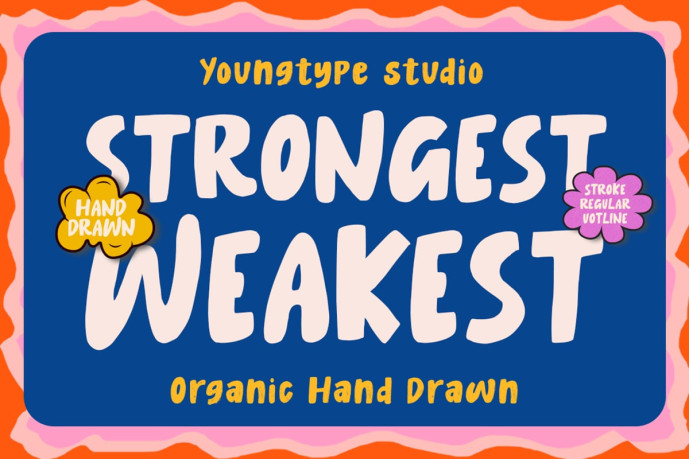
Strongest Weakest Font
Designer: Youngtype
Strongest Weakest Font, Stroke & Outline is a hand brush font made with brushes and ink. This typeface is ideal for use in thick watercolor designs or handwriting styles, such as blog titles, posters, wedding, elements, book, covers, business cards, greeting cards, branding, merchandise etc.